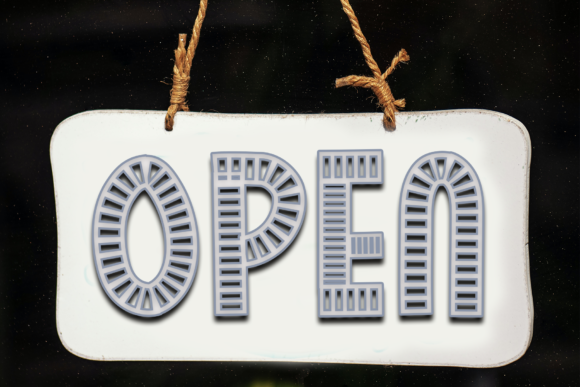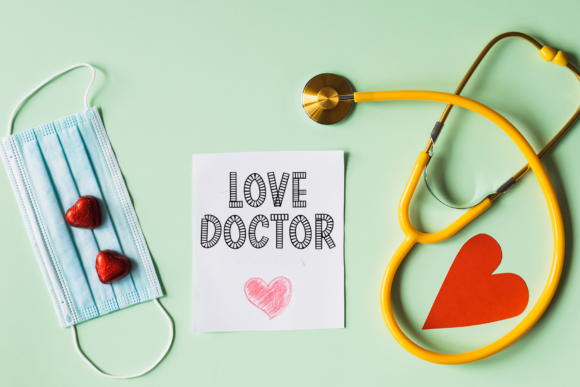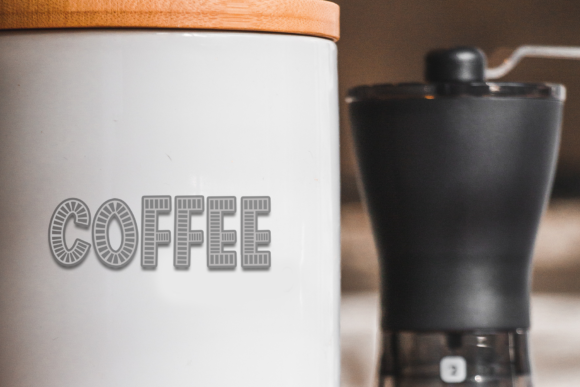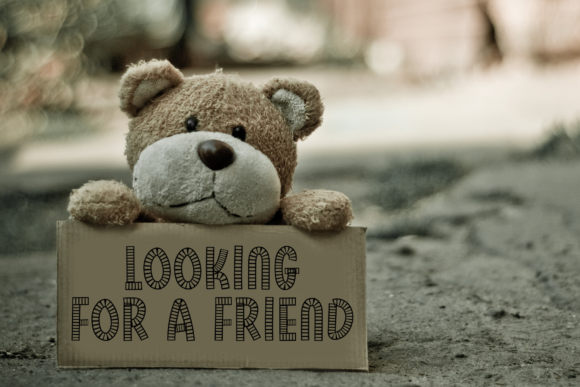
Introduction to Master Love Font
Master Love is a fun display font with a unique style.
Master Love is the perfect font for making original and outstanding designs .
Key Features of Master Love Font
Why Choose Master Love Font?
Master Love Font offers exceptional quality and versatility, making it a valuable addition to your design toolkit. Whether you’re creating for personal projects or commercial use, Master Love Font delivers professional results.